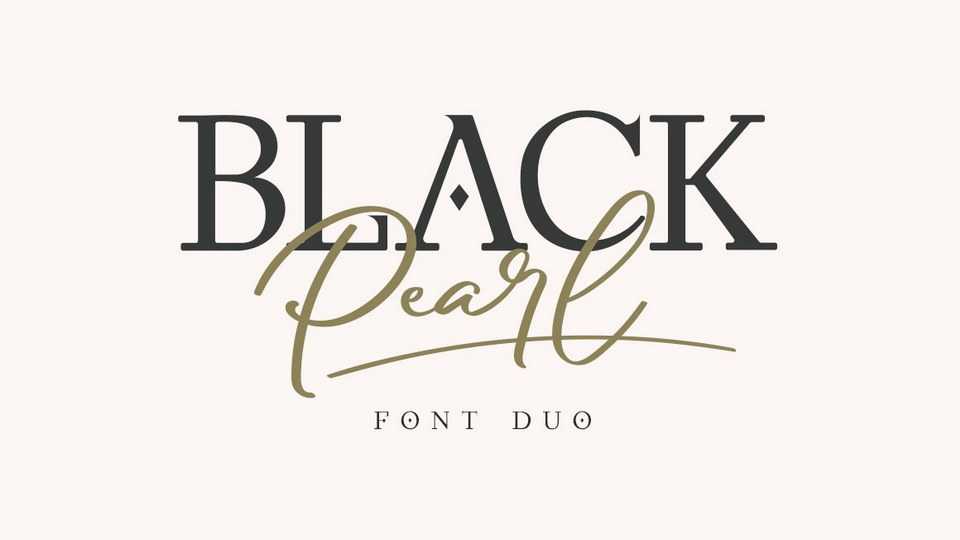
Download Black Pearl font, a luxury script and elegant serif typeface combined to make your project look more deluxe and classy.
Designer: Embun Studio